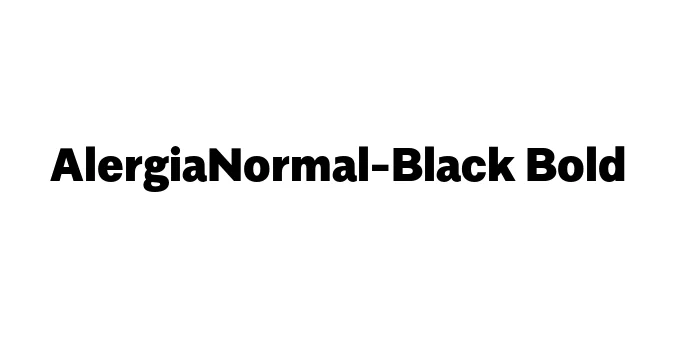
AlergiaNormal-Black Bold
Designed by Mateusz Machalski
| Category | Sans-Serif / Display |
| Designer | Mateusz Machalski |
AlergiaNormal-Black Bold is a sophisticated sans-serif typeface designed by the renowned Polish type designer Mateusz Machalski. Part of the larger Alergia superfamily, this specific weight represents a hybrid between geometric structures and humanist proportions. It was crafted to provide a strong, authoritative voice in digital and print mediums, featuring unique ink traps and distinctive stroke terminals that ensure clarity even at large display sizes.
The development of AlergiaNormal-Black Bold focused on creating a versatile tool for high-end editorial and branding projects. Its robust construction and high-contrast thickness make it particularly effective for modern graphic design. The font balances a technical aesthetic with an artistic flair, making it a standout choice for designers looking for a typeface that communicates both professionalism and creative edge.
AlergiaNormal-Black Bold Best Uses
Ideal for high-impact titles and large-scale editorial display work.
Creates a strong and memorable visual identity for modern brands.
Offers excellent legibility and visual weight for outdoor advertising.
Perfect for emphasizing key elements and bold headers in mobile applications.
Provides a high-contrast, premium feel for luxury editorial spreads.